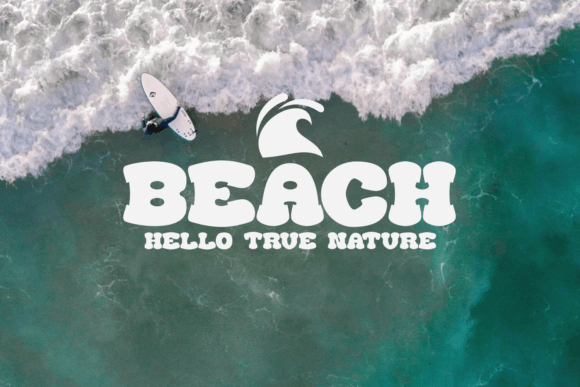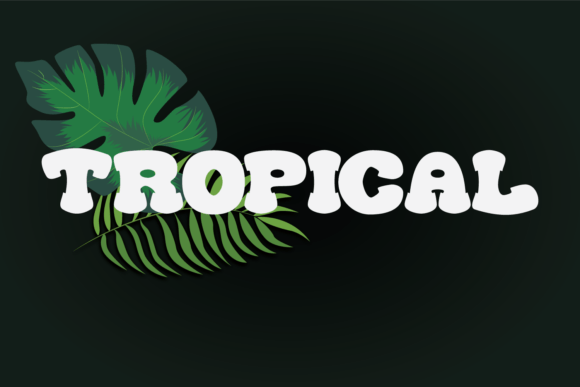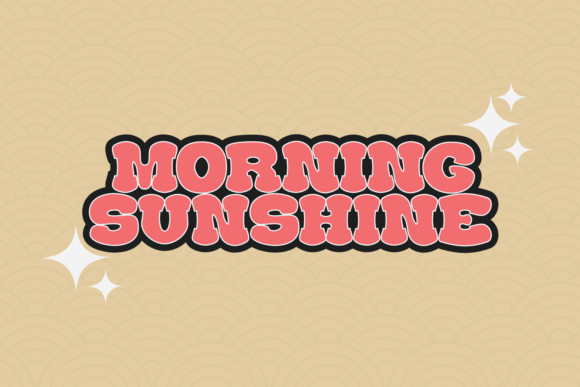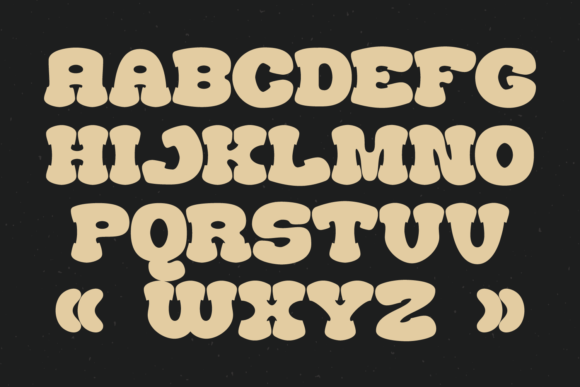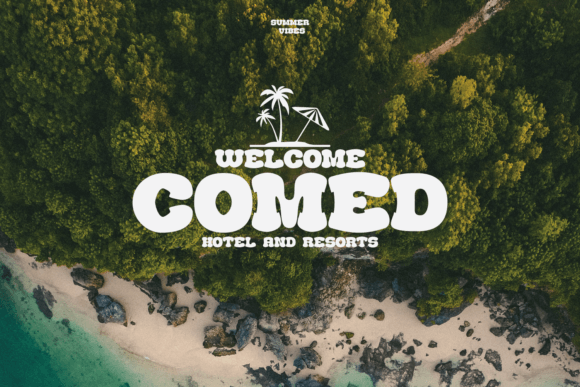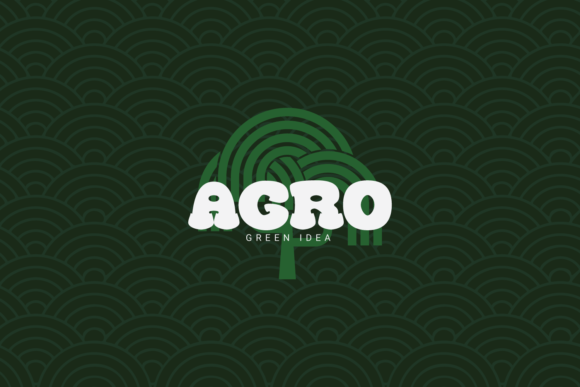
The Retro Charm of Black Bone Font: A Designer’s Delight
I still remember the time I was working on a project for a client’s vintage-themed party invitation. I had all the design elements in place – the colors, the graphics, the overall aesthetic – but something was missing. That’s when I realized I needed the perfect font to tie everything together. After scouring through countless font libraries, I stumbled upon Black Bone Font. Its retro vibe and playful charm instantly caught my attention, and I knew I had found the one. In this article, I’ll share my experience with Black Bone Font, its features, and how to make the most of it in your designs.
An Honest Review of Black Bone Font
• ✨ Retro vibe that’s perfect for projects that need a playful touch
• 💃 Fun and groovy, adding a personality to any design
• 🎉 Versatile, suitable for a wide range of projects, from invitations to posters
While Black Bone Font is an excellent choice for many projects, there are a few things to keep in mind:
• 🤔 Limited use for formal or professional projects, as its playful nature might not fit the tone
• ⚠️ Some characters may not be suitable for body text, as they are designed for display purposes
The Backstory of Black Bone Font
Black Bone Font was designed with the intention of capturing the carefree spirit of the 1960s and 1970s. The designer, inspired by vintage posters and advertisements, aimed to create a font that would evoke a sense of fun and playfulness. The result is a font that’s perfect for projects that need a retro touch.
Q: What type of projects is Black Bone Font best suited for?
A: Black Bone Font is perfect for projects that need a playful and friendly touch, such as invitations, posters, and social media graphics.
Q: Is Black Bone Font suitable for body text?
A: While Black Bone Font is highly legible, it’s designed for display purposes, so it’s best used for headlines and titles rather than body text.